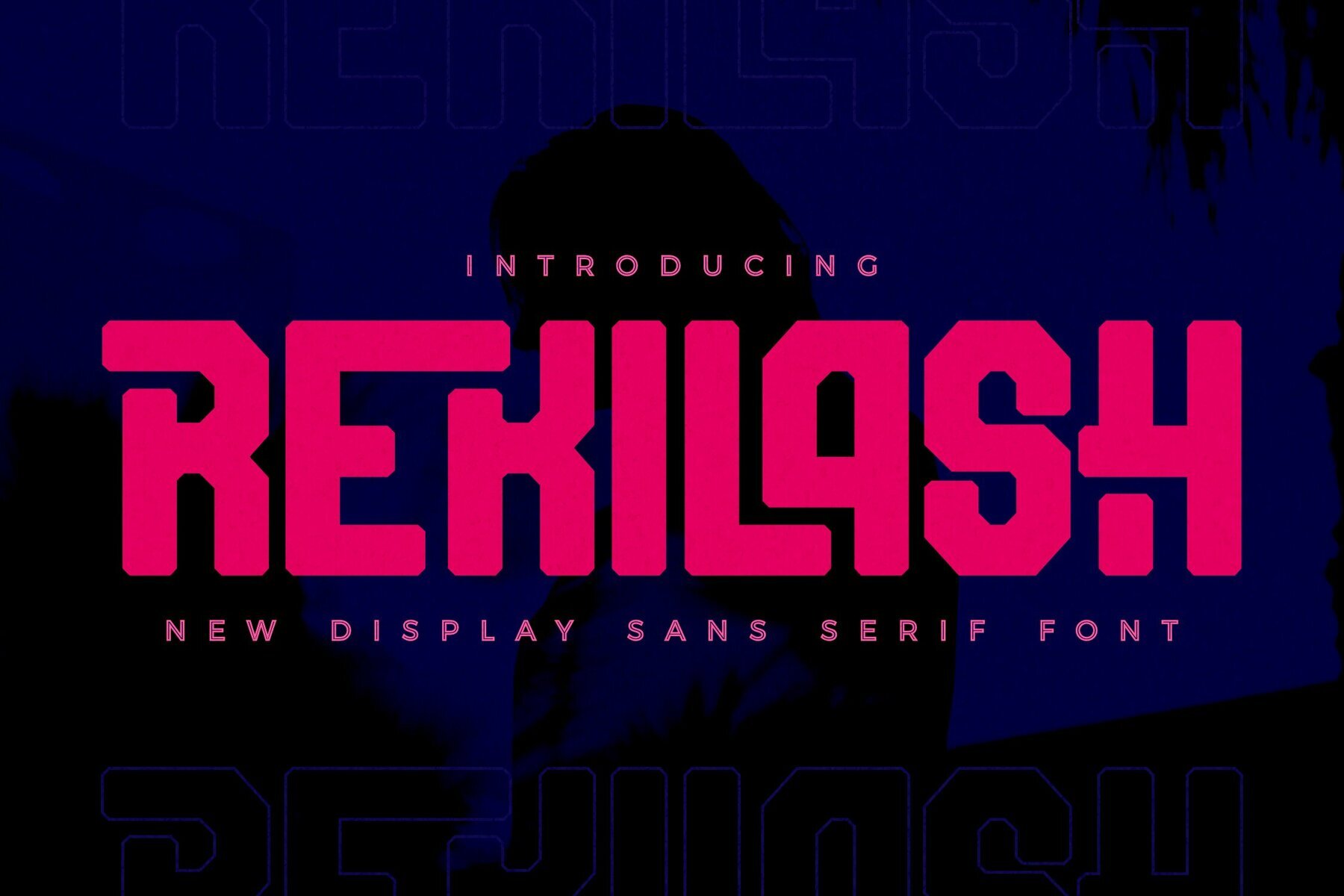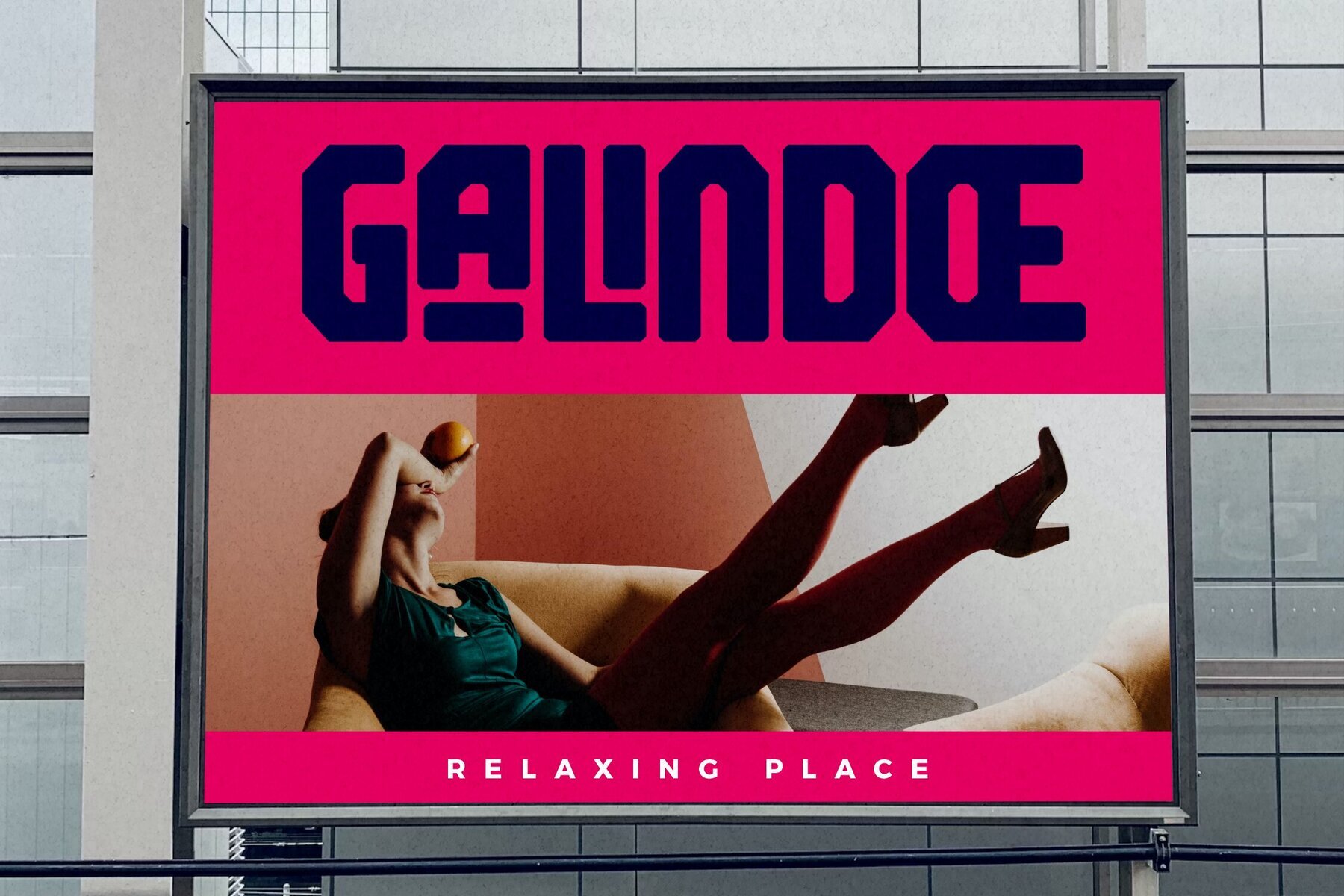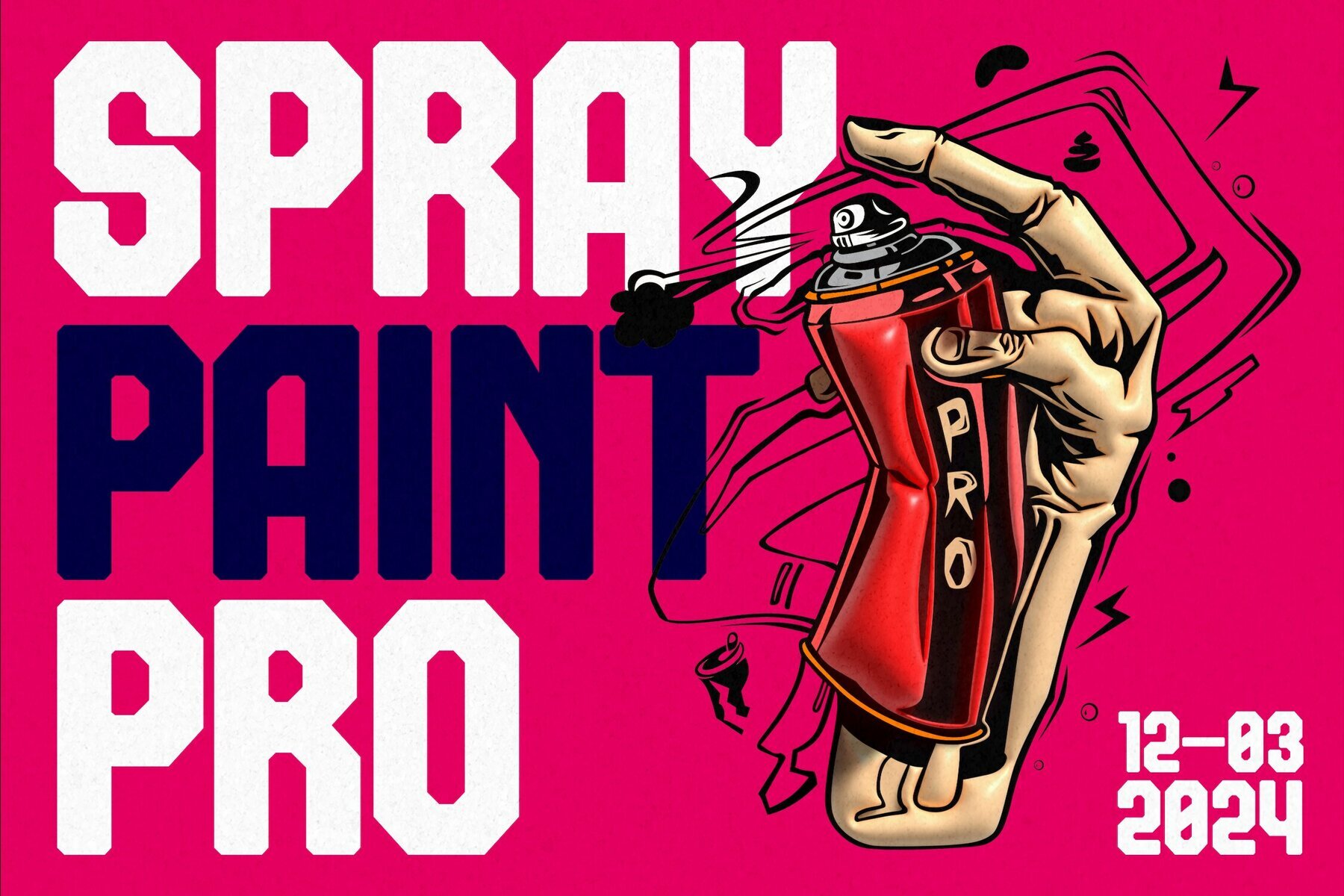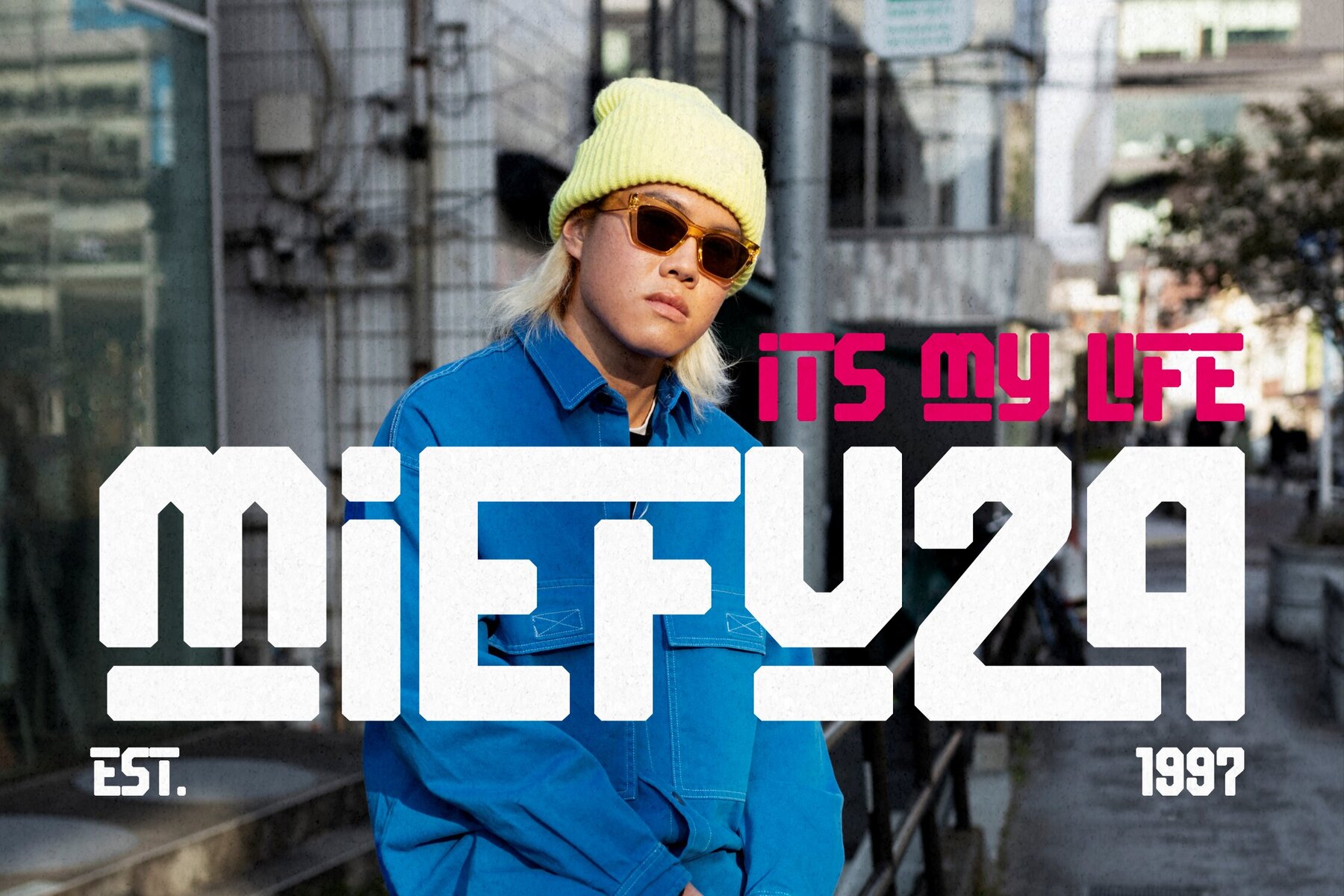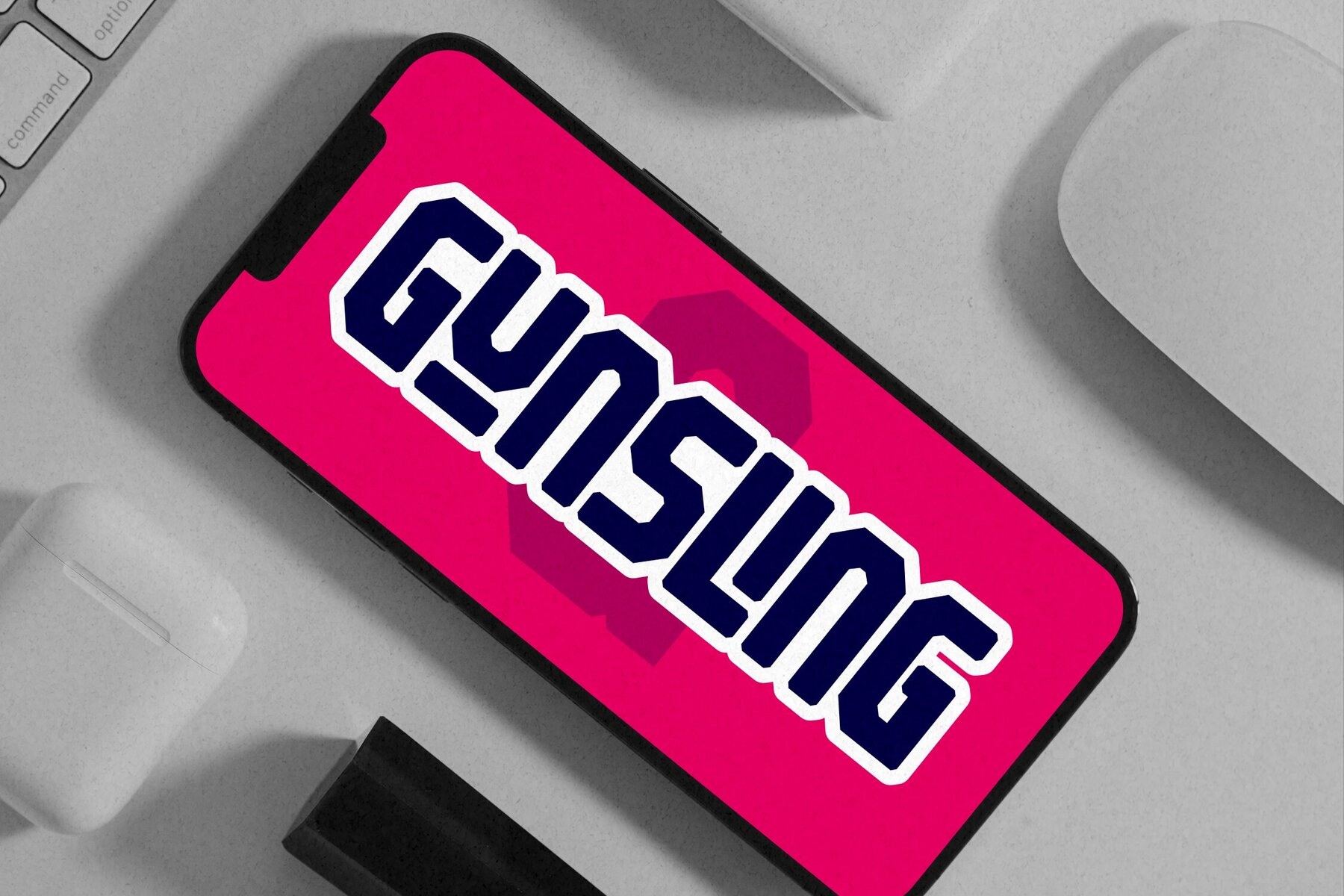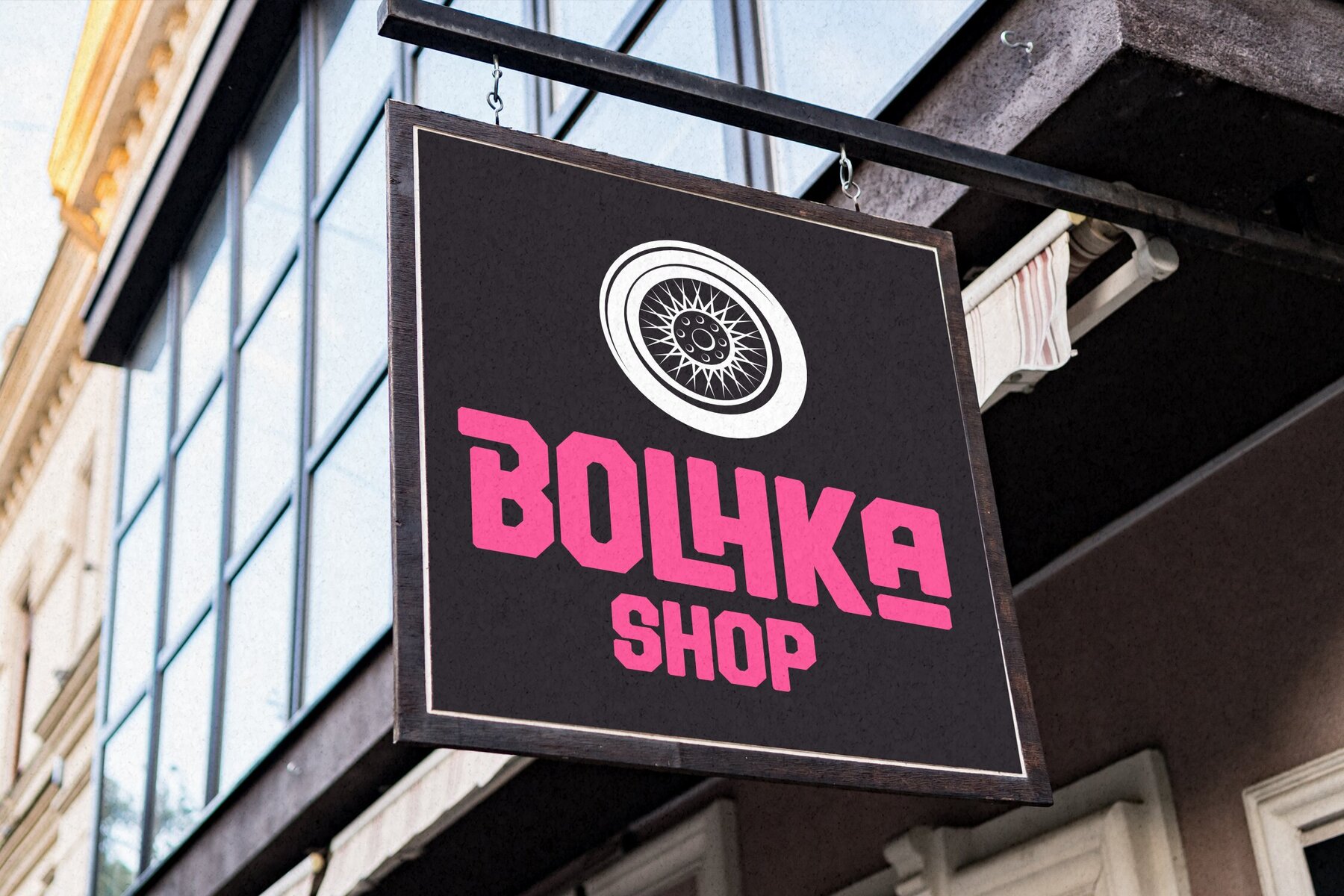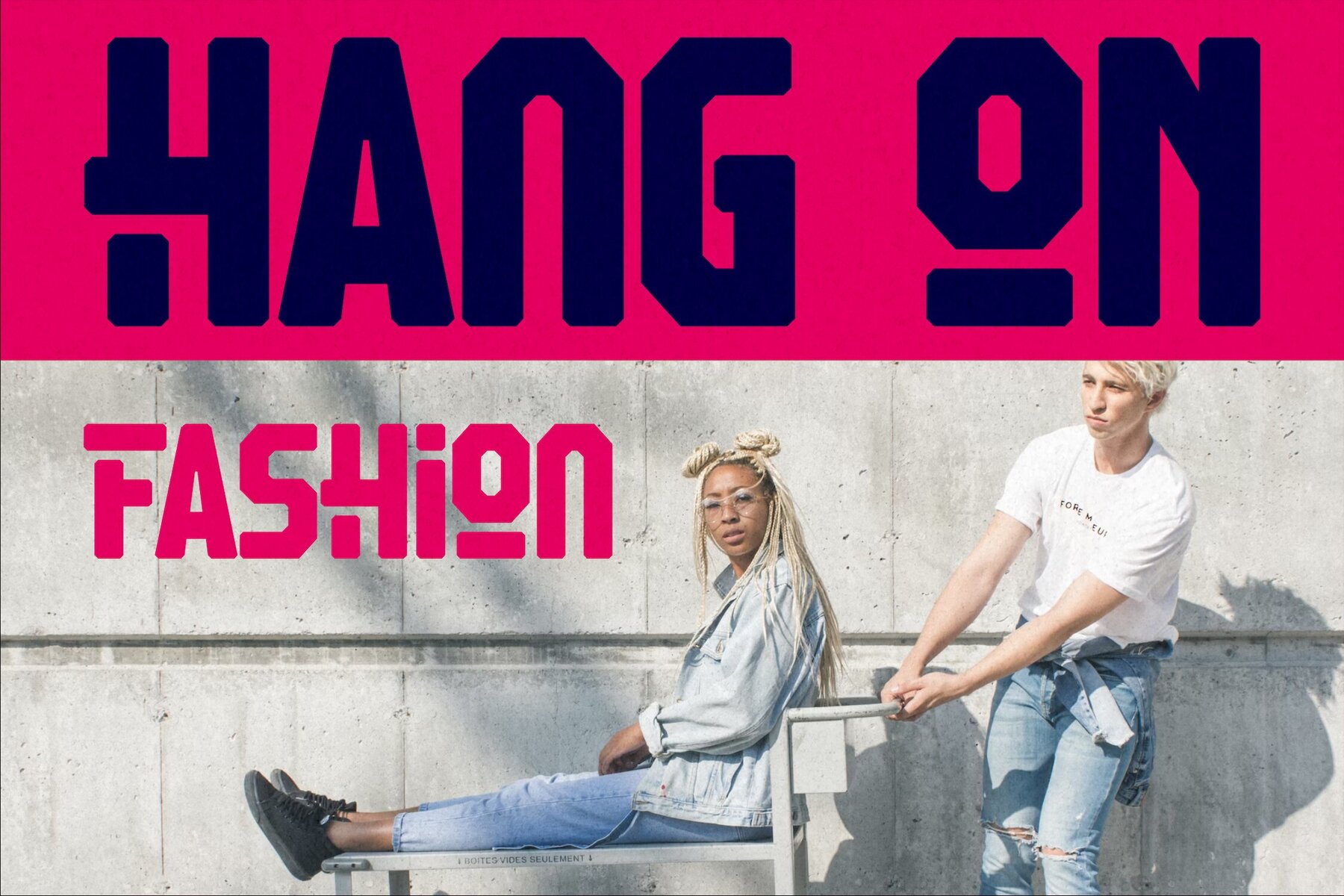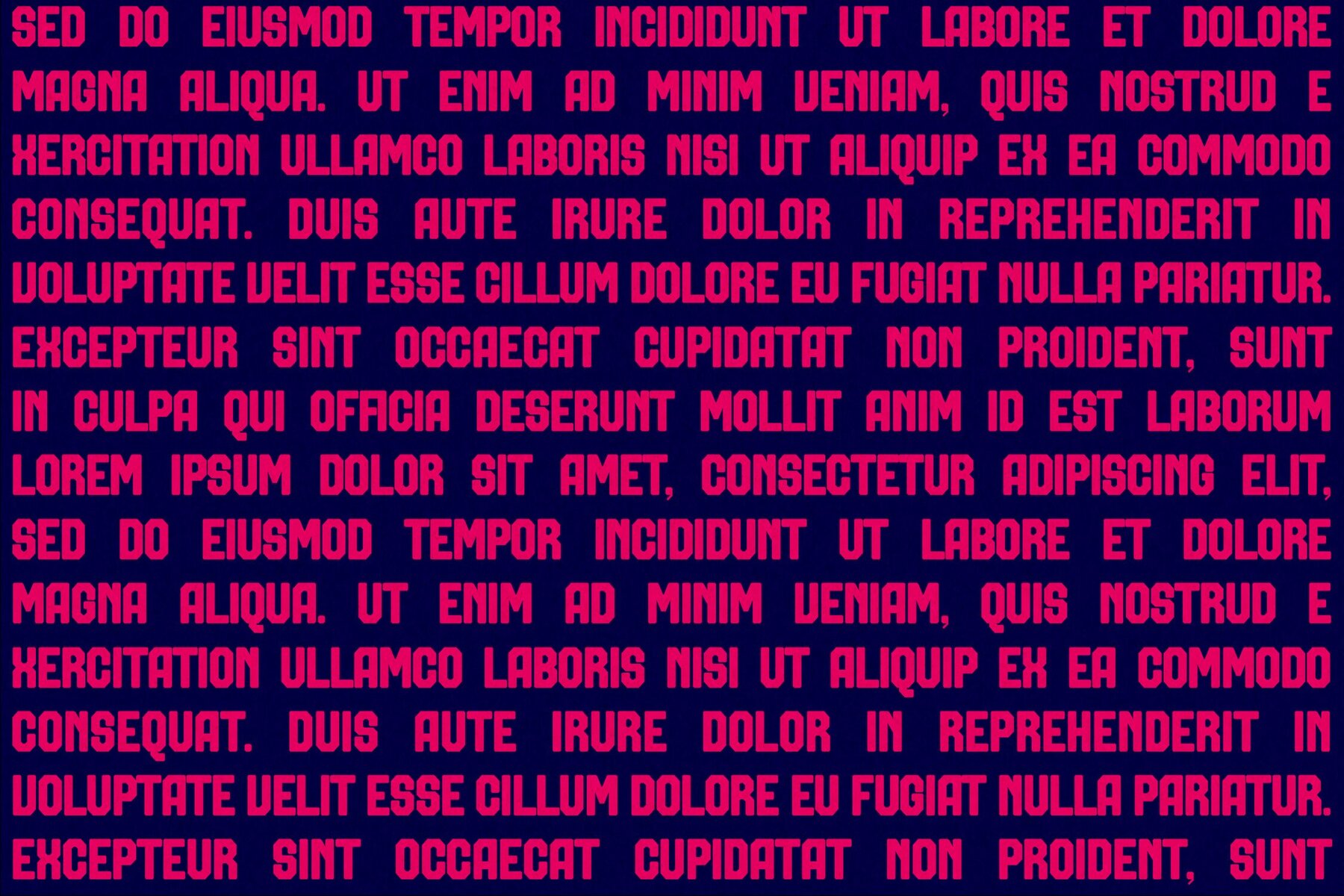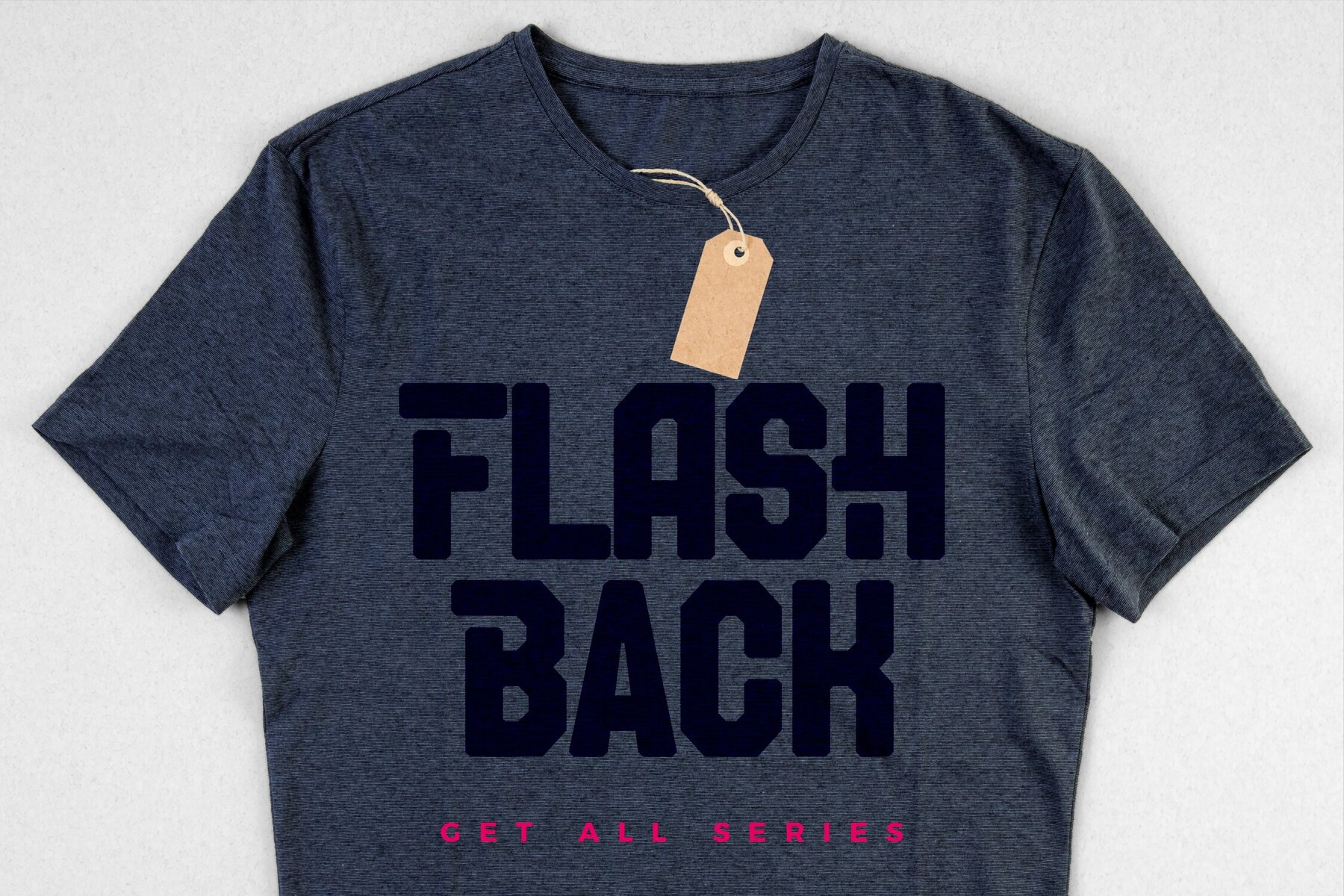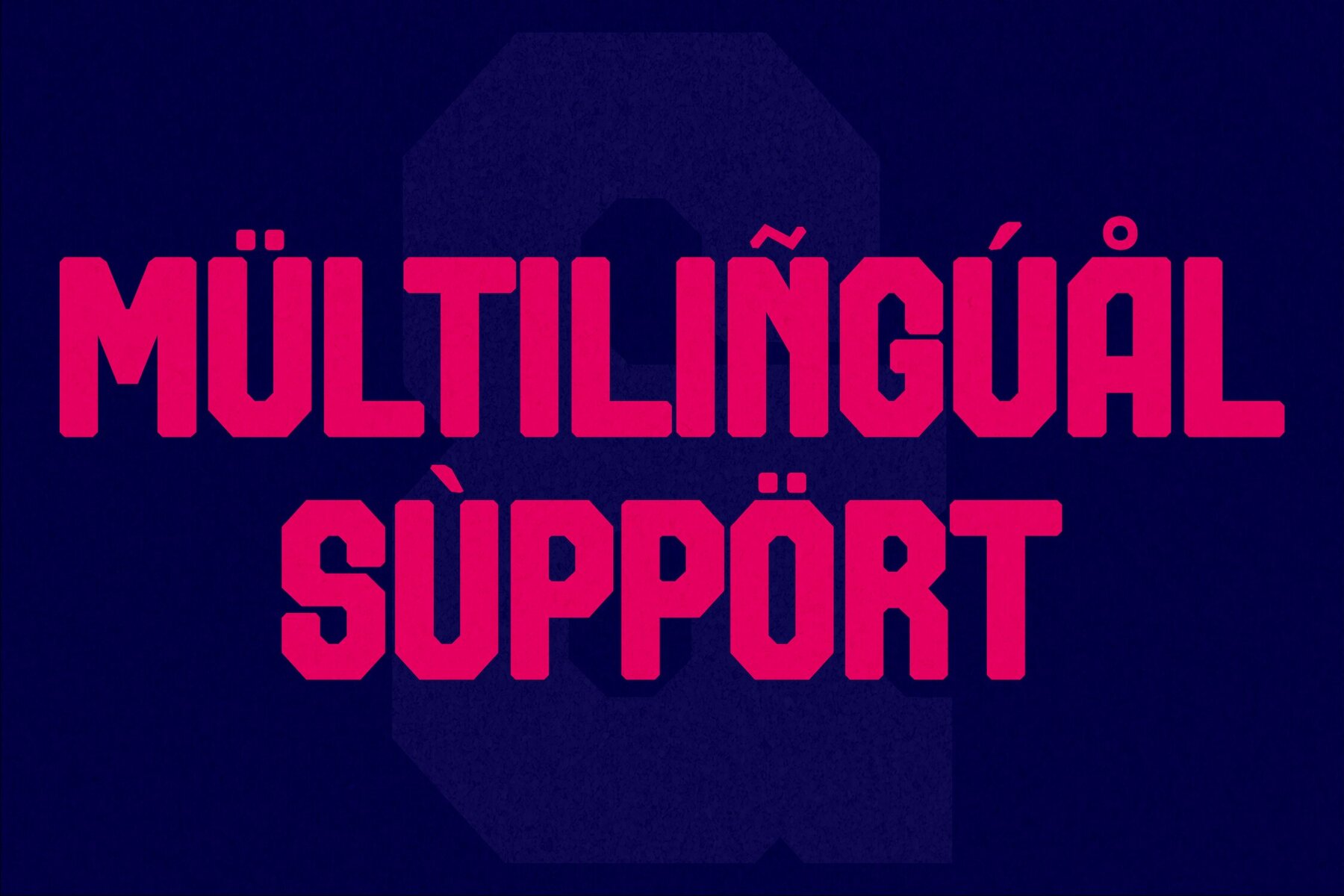
Rekilash Font
Discover the elegance of Rekilash Typeface by Storytype Studio, a captivating serif that seamlessly blends modern and classic styles. Whether you're designing a luxury logo, a captivating book title, or high-fashion branding, Rekilash delivers a unique charm that elevates your creative projects. With its refined aesthetic, it's an impeccable choice for magazines, clothing lines, and artistic quotes.Rekilash Typeface